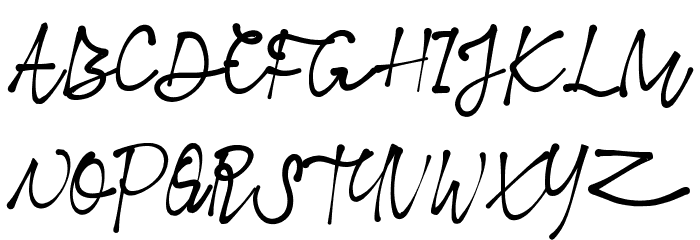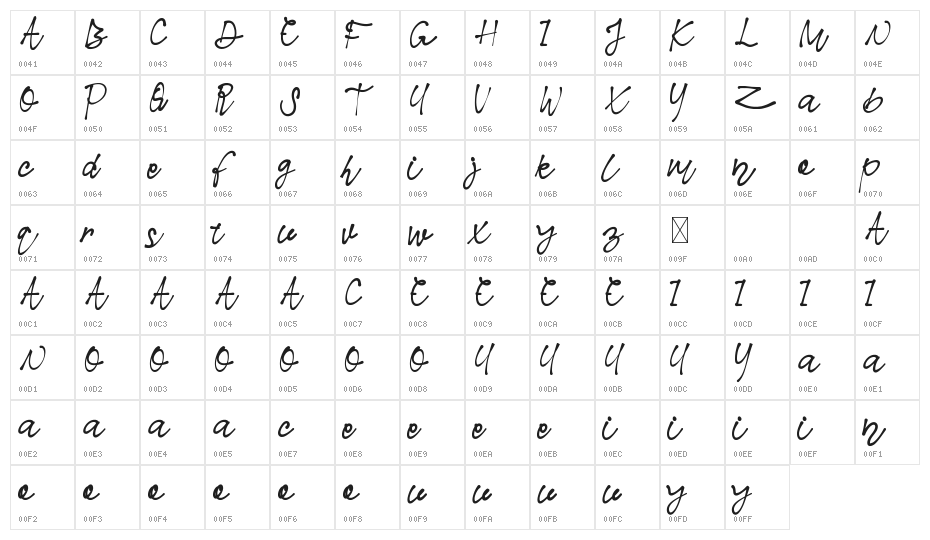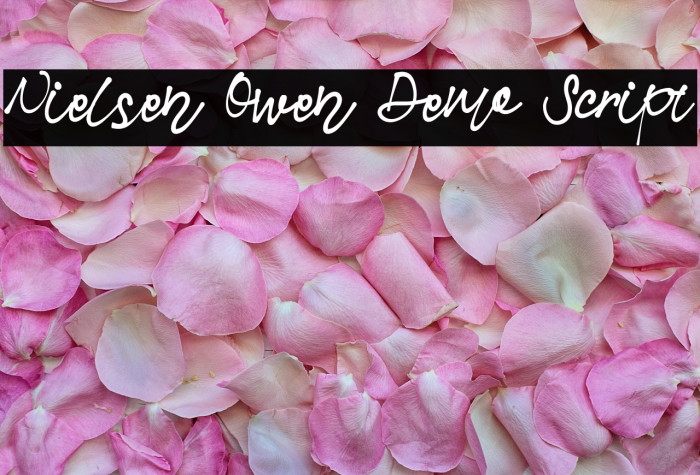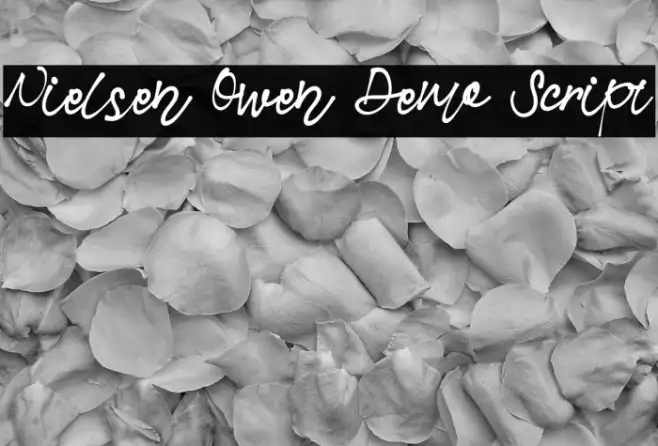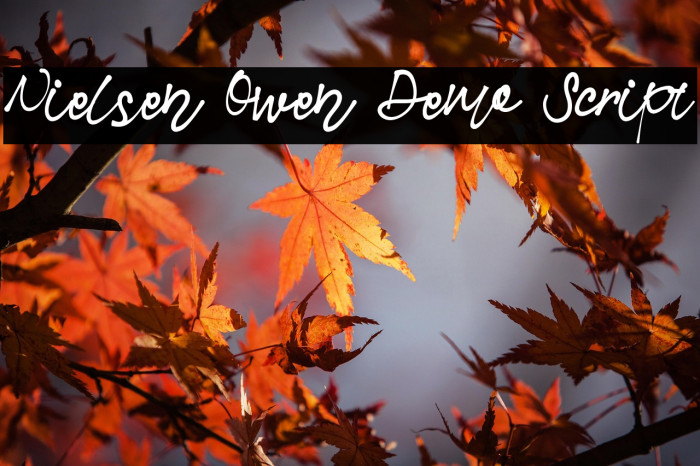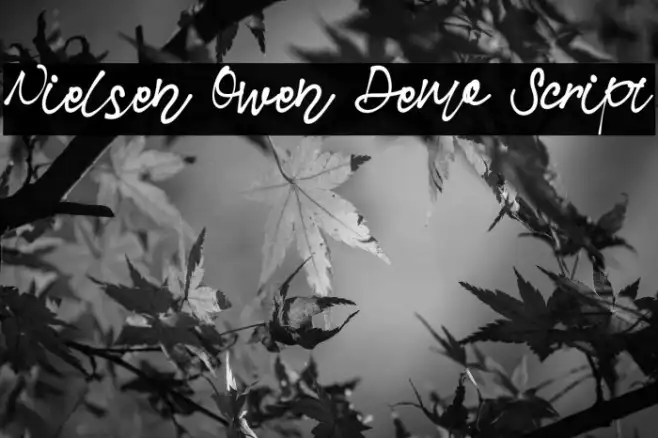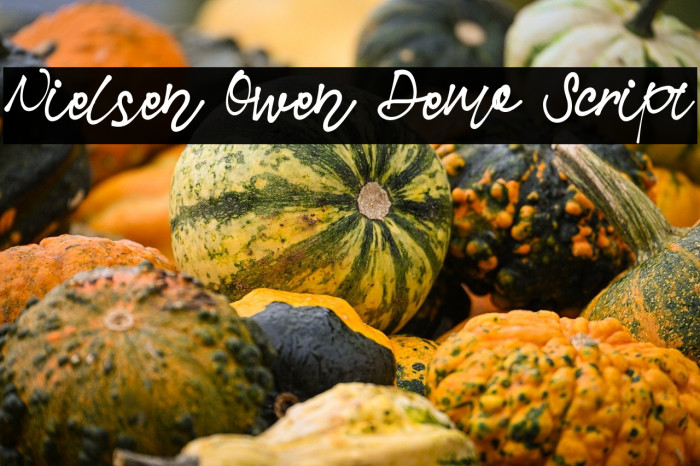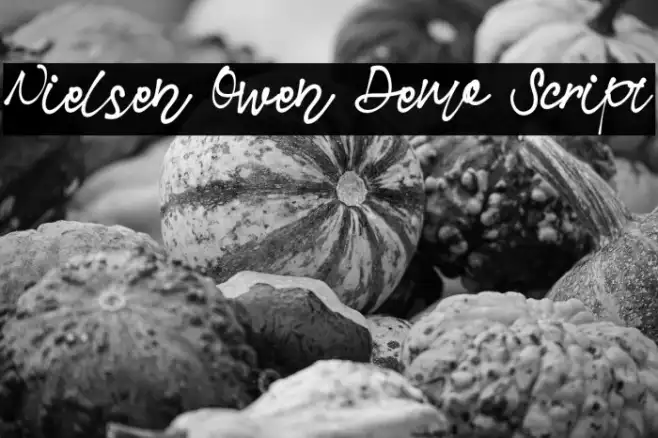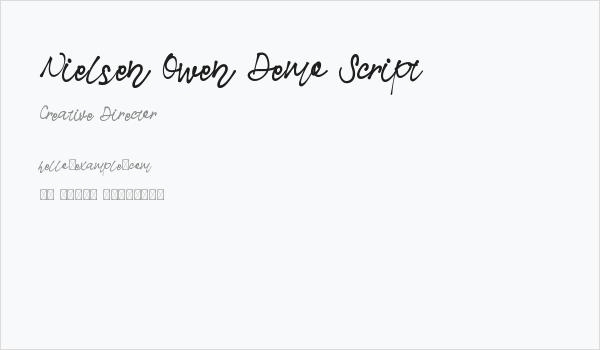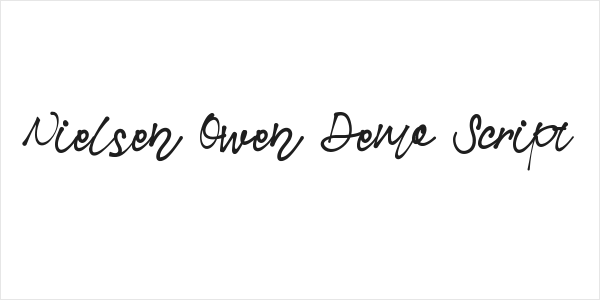
Nielsen Owen Demo Script Font
Nielsen Owen Demo Script Description
This font features a dynamic and fluid script style, characterized by its elegant, flowing lines and a handwritten appearance. The uppercase letters are tall and slightly slanted, giving a sense of movement and grace. The lowercase letters maintain a consistent rhythm, with smooth curves and loops that enhance its cursive nature. The font's playful yet sophisticated look makes it versatile for various design projects. It combines a modern aesthetic with a touch of vintage charm, making it suitable for both formal and informal contexts. The overall impression is one of creativity and expressiveness, ideal for capturing attention and conveying a personal touch.